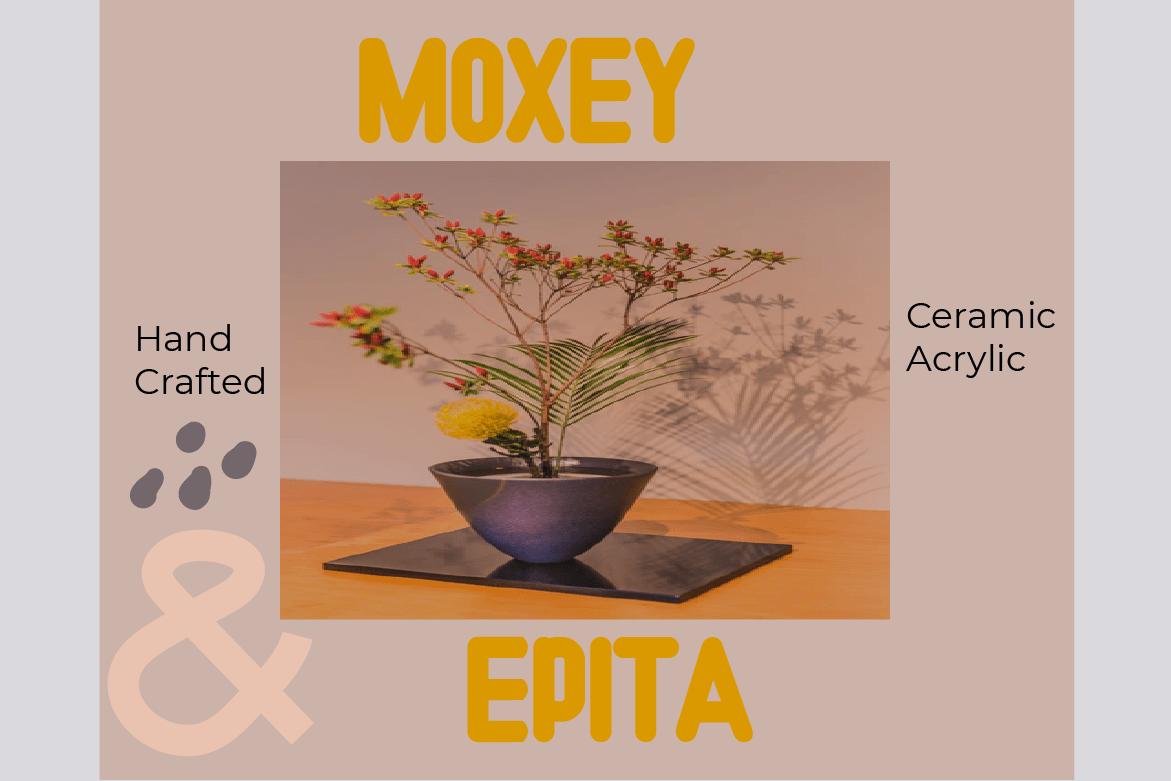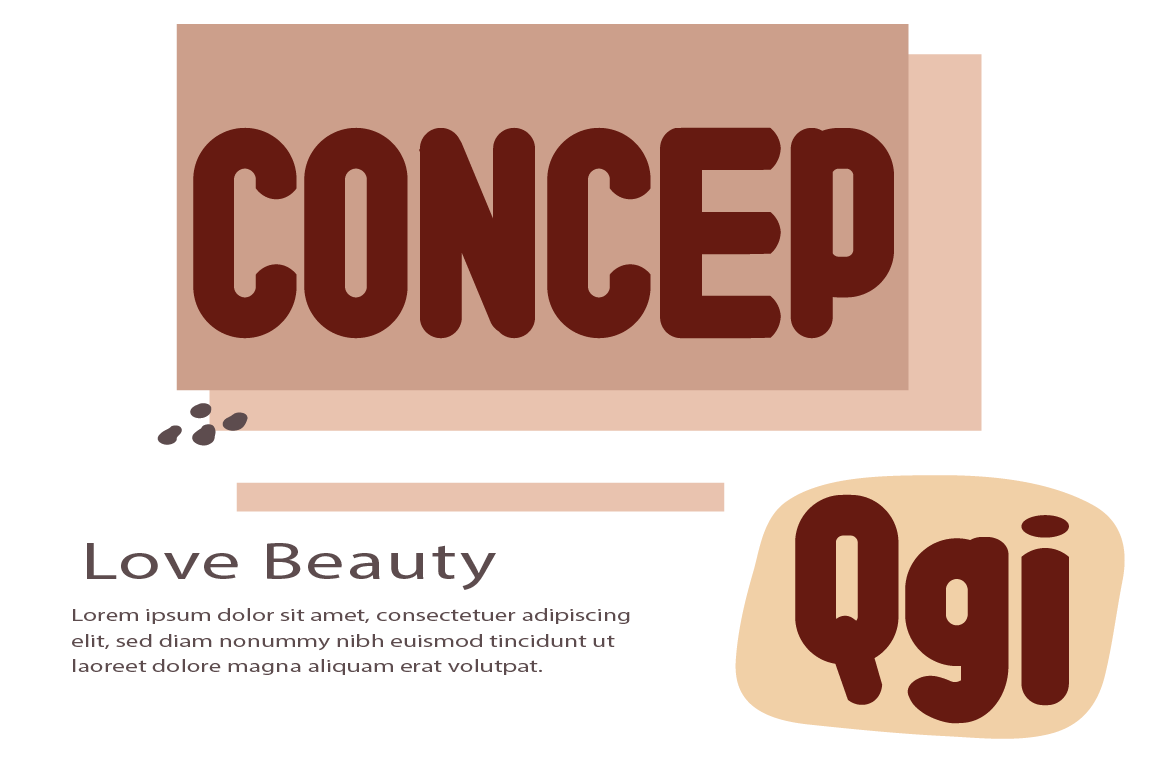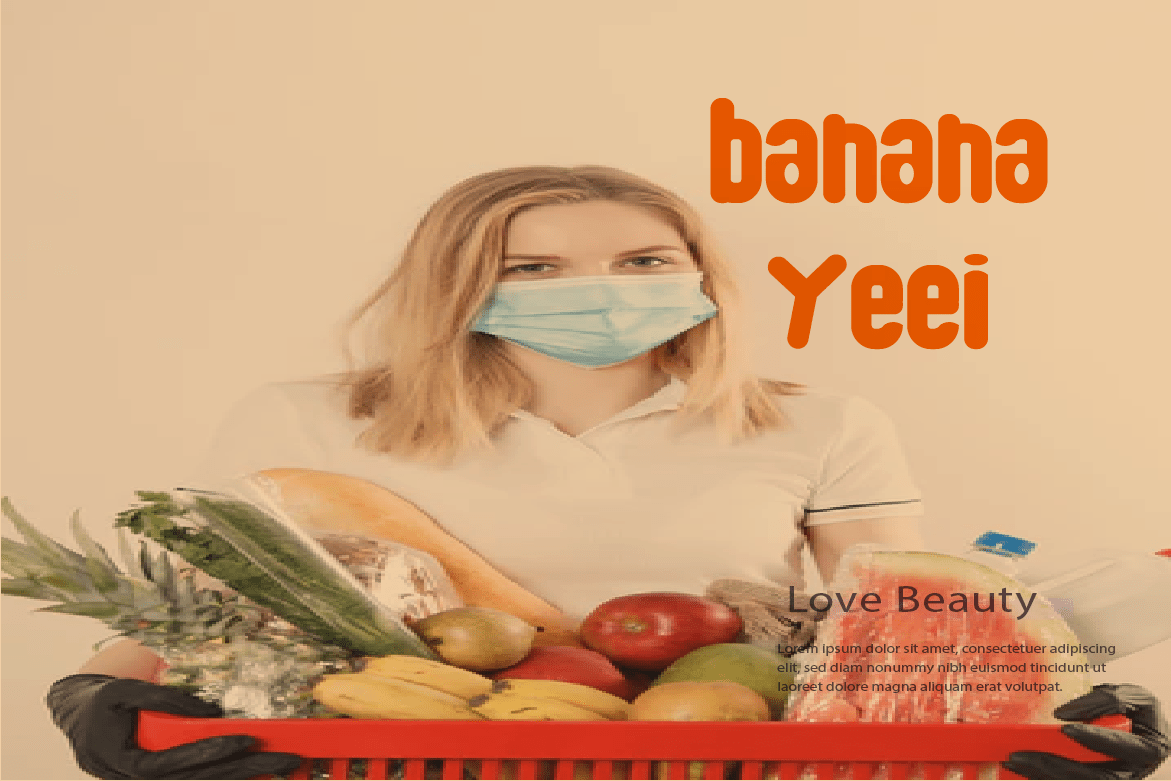
Apixos Font
Apixos Font Focused and bold apixos with a sleek, modern character. apixos offers unique qualities for a wide variety of media and optics related brands. Possible uses: Interesting and memorable. modern and innovative form. Technician and smart. Diligent and smart consultancy consultant consultants consulting contractor media multimedia music solution sound web development website